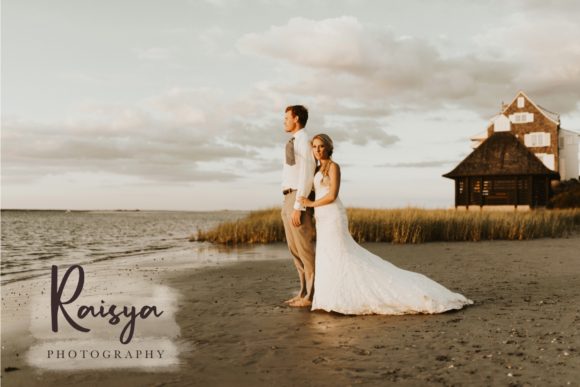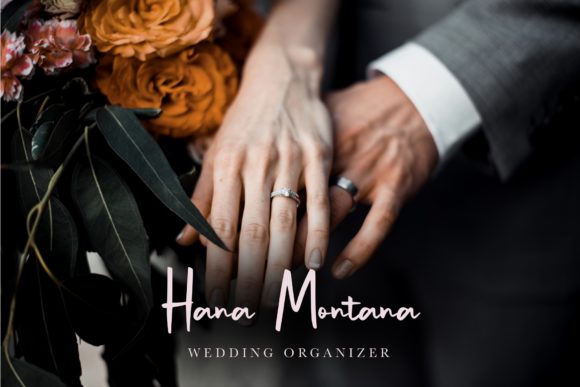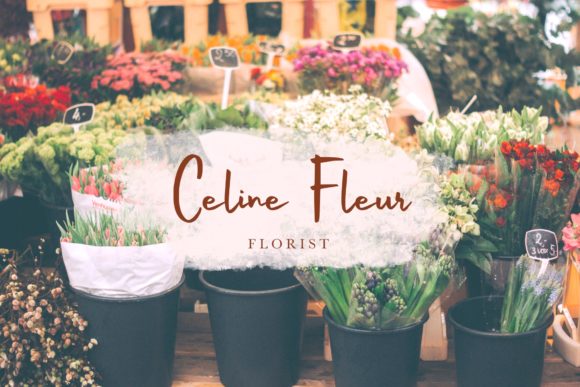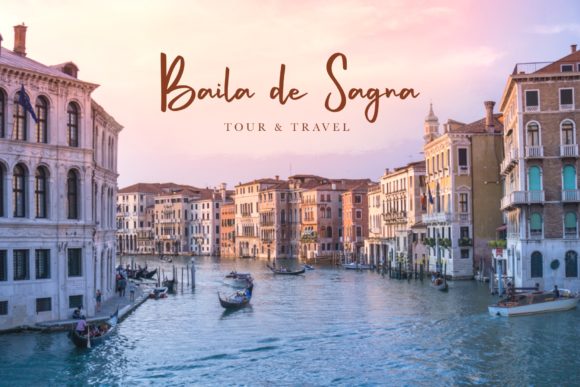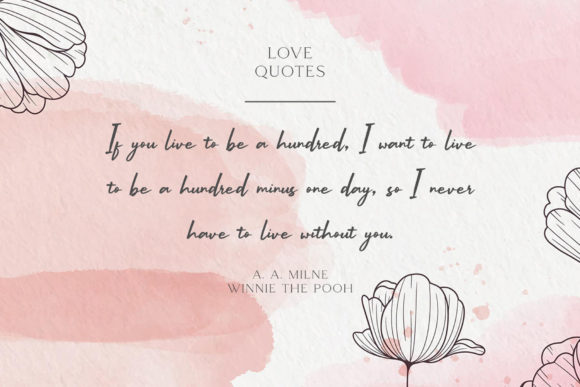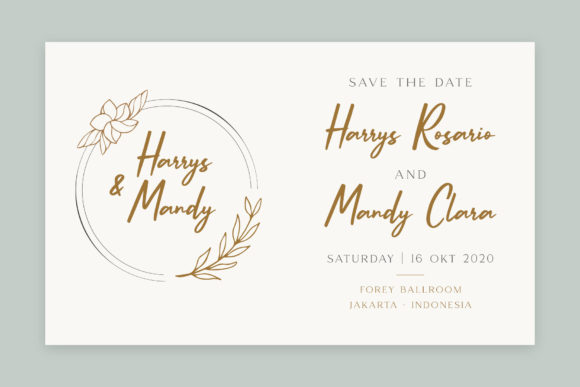
The Perfect Match for Your Creative Vision
Have you ever found yourself staring at a blank page, trying to bring your idea to life, only to be held back by the right words? It’s a frustrating moment we’ve all experienced at some point. But what if you had a tool that could elevate your creations and make them truly special? Enter the Belle Amour Font, a delicate and exquisite handwritten font designed to add a touch of elegance to your work.
This beautiful font is more than just a pretty face – it’s a valuable asset for designers looking to add a personal touch to their projects. Whether you’re a seasoned pro or just starting out, the Belle Amour Font is the perfect companion to help you bring your vision to life. With its relaxed and timeless feel, it’s the perfect choice for any project that needs a little extra love and care.
Belle Amour Font Key Features
- Resolution: The font is designed with a high-resolution format, making it suitable for both print and digital use.
- Unique Characteristics: Belle Amour Font features a unique blend of elegant and feminine styles, with intricate details and flourishes.
- Font Style: Belle Amour Font is available in regular, italic, bold, and bold italic styles, offering flexibility for various design applications.
Belle Amour Font Review
As a designer, I was initially drawn to the Belle Amour Font for its elegant and sophisticated vibe ✨. The font’s cursive script and subtle flair on the terminals make it perfect for creating romantic and whimsical designs. It’s a great choice for wedding invitations, love letters, and other sentimental projects.
- ✨ Elegant and sophisticated design
- ✨ Perfect for romantic and whimsical projects
However, I do have a few concerns about the font’s limitations ⚠️. The Belle Amour Font is not suitable for titles or headlines, as it can be quite difficult to read at larger font sizes. Additionally, the font lacks a bold weight, which may limit its versatility in certain designs.
- ⚠️ Not suitable for titles or headlines
- ⚠️ Lacks a bold weight
- ⚠️ May be difficult to read at larger font sizes
Overall, I would recommend the Belle Amour Font for designers who are looking for a high-quality, elegant script font for sentimental projects. While it may have some limitations, its unique design and versatility make it a great addition to any font library.
Some tips for getting the most out of Belle Amour Font include using it in conjunction with elegant graphics and color schemes, and experimenting with different font sizes and styles to create visual interest. Common use cases for Belle Amour Font include wedding invitations, branding materials, business proposals, and professional-looking presentations.